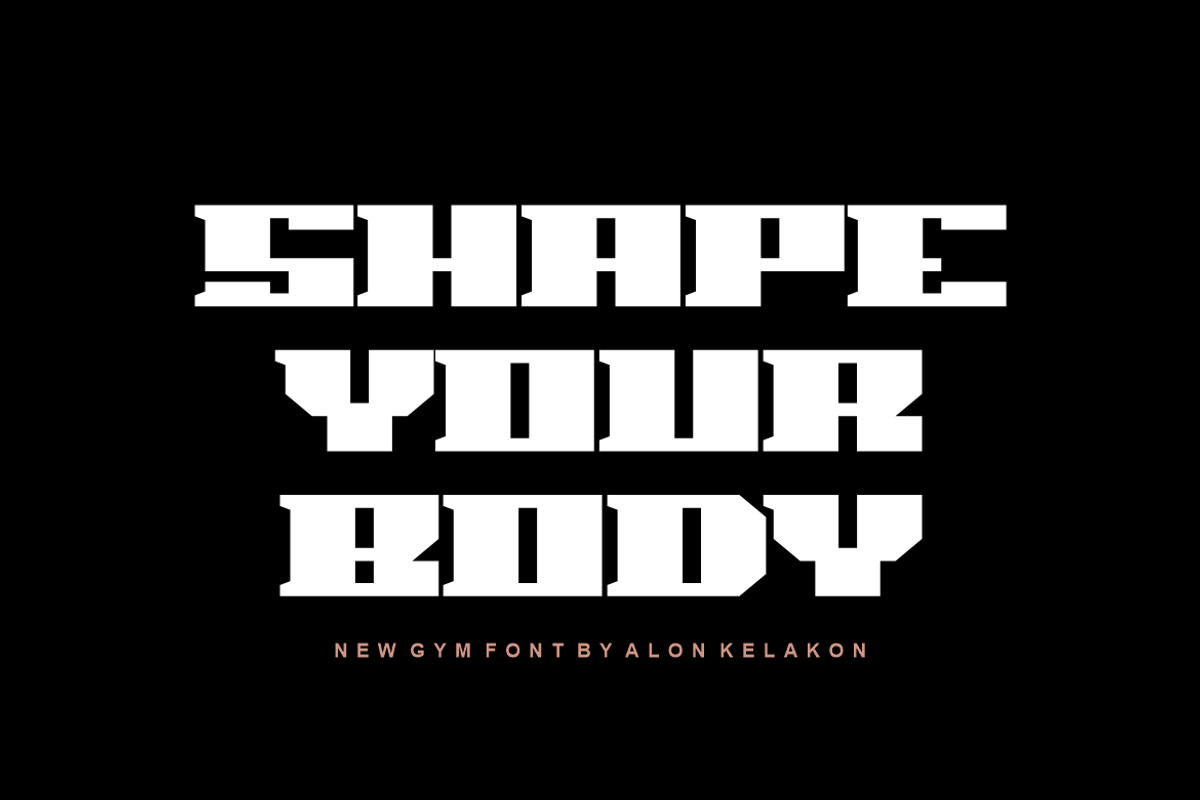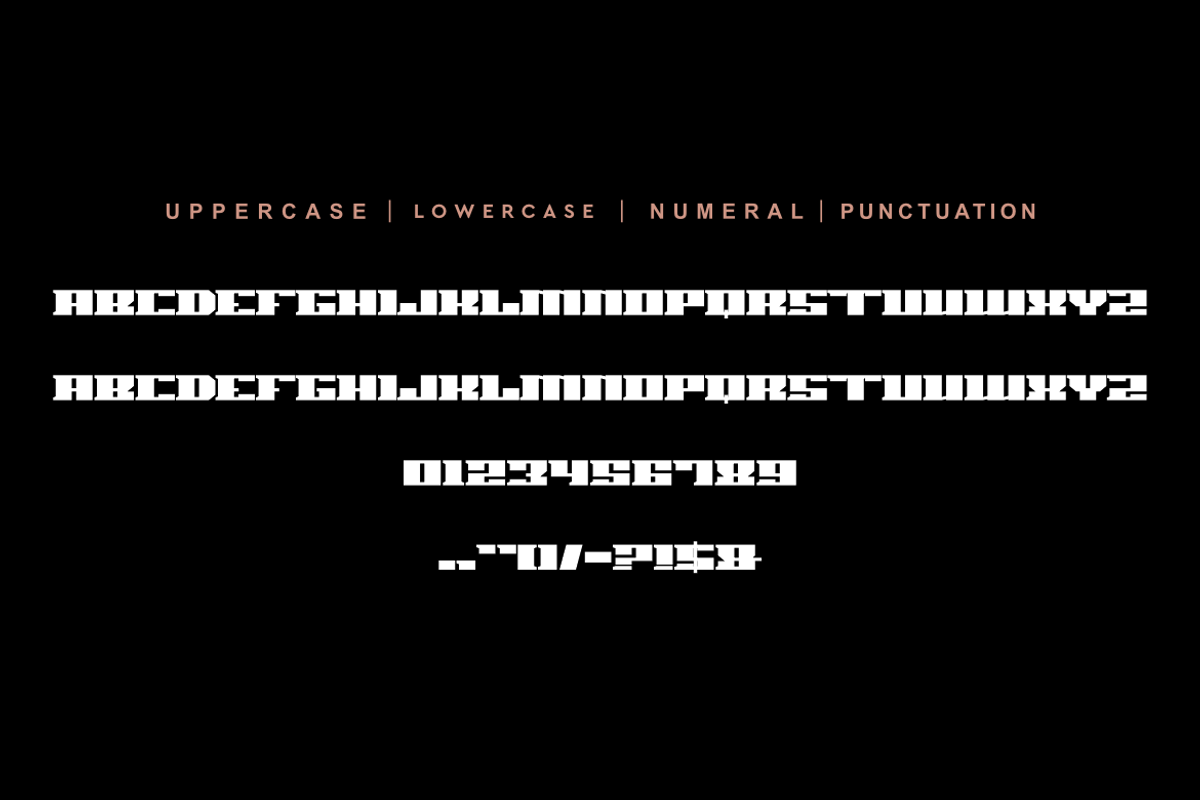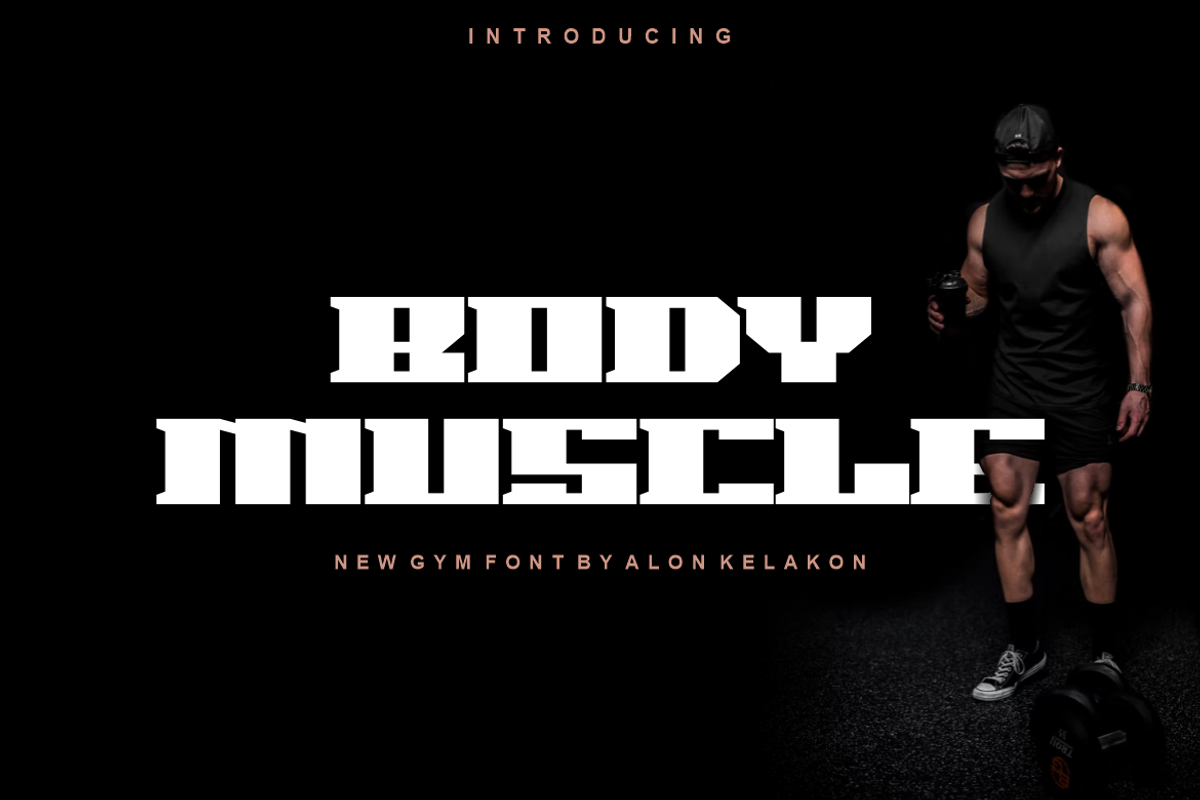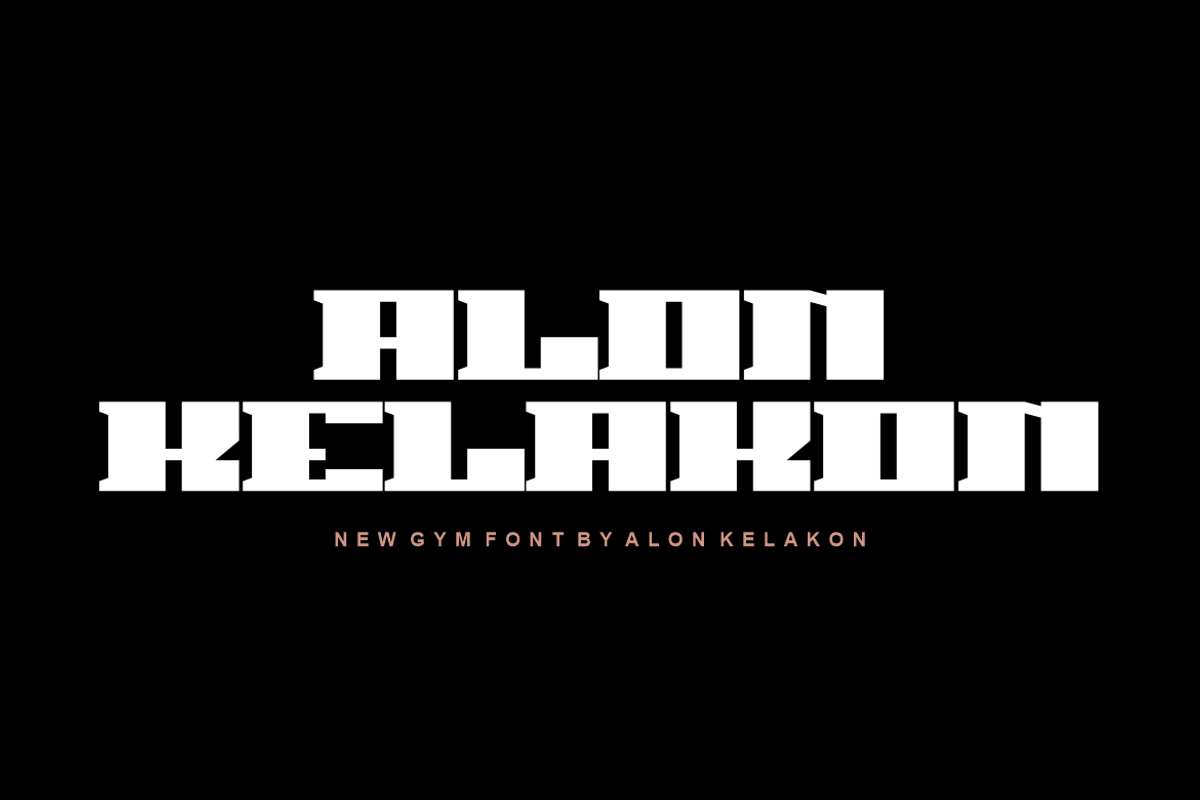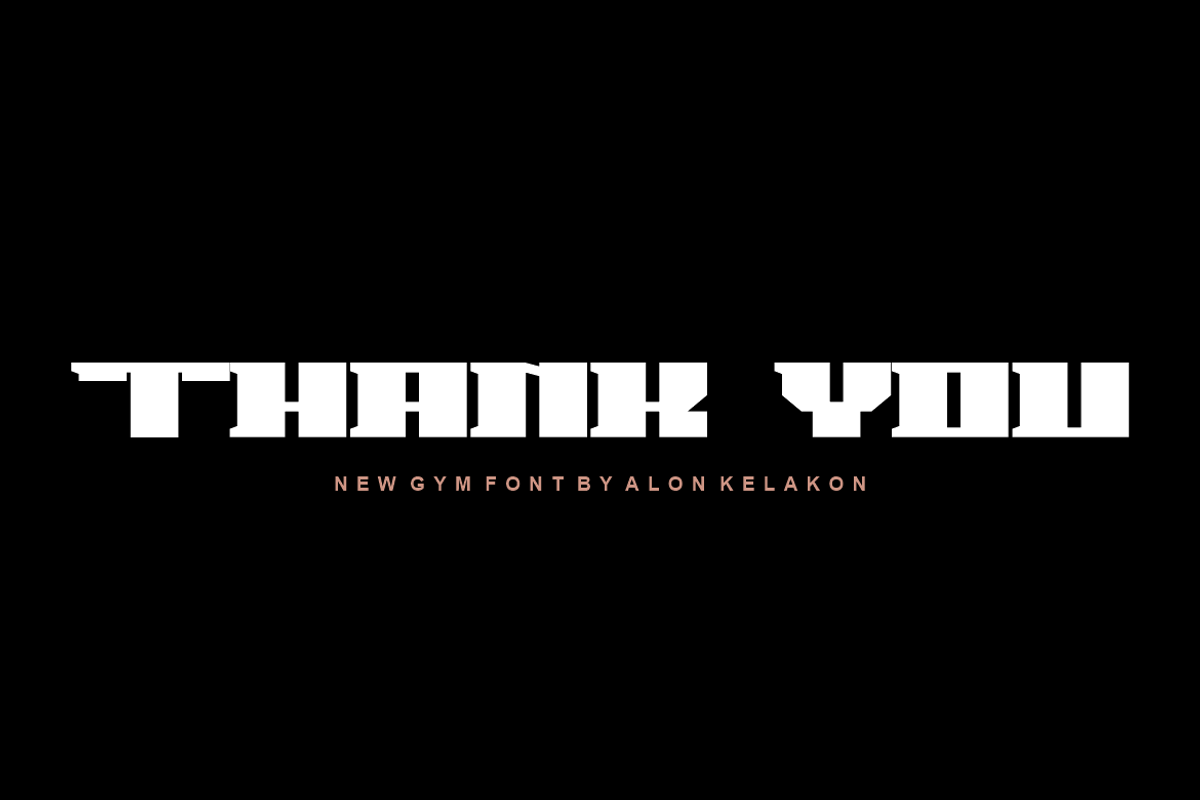
Body Muscle
Body Muscle Font is unique . Ready to use for your design like labeling, clothing, movie sceen, poster, movie title, gigs, album covers, logos, and much more.